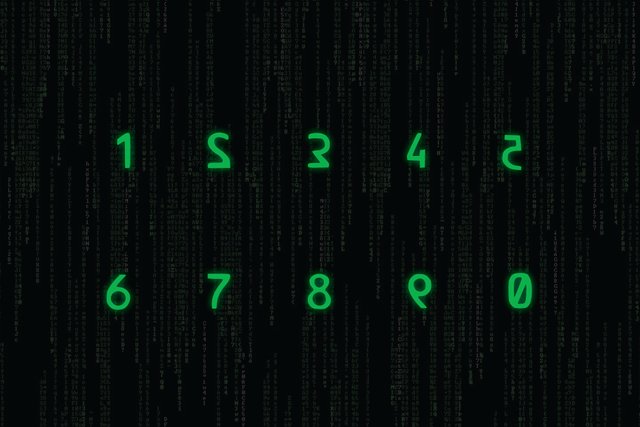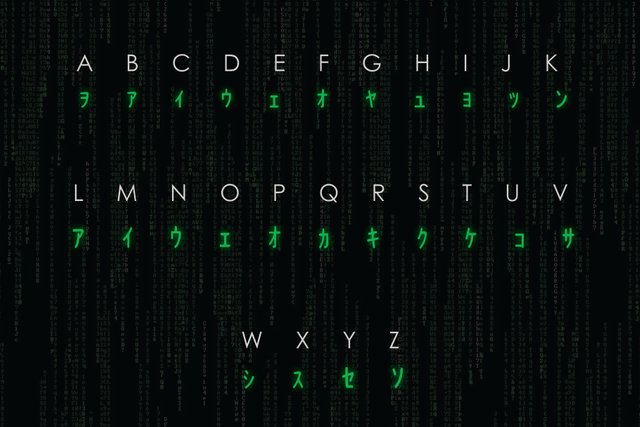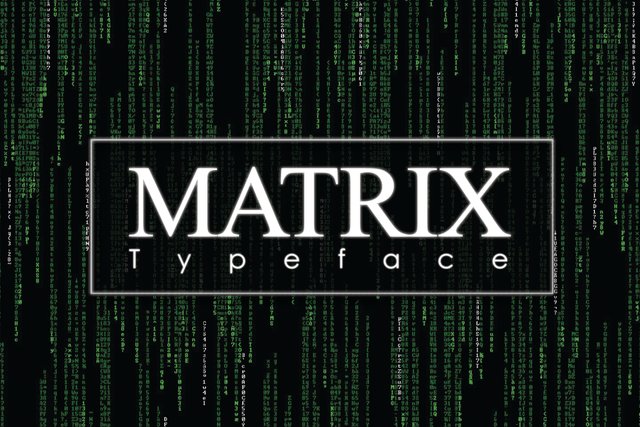
Matrix Inspired Typeface
MATRIX is a modern computer code typeface. Its digital style makes it perfect for use in your design projects.
MATRIX comes with the computer symbols for numbers and letters.